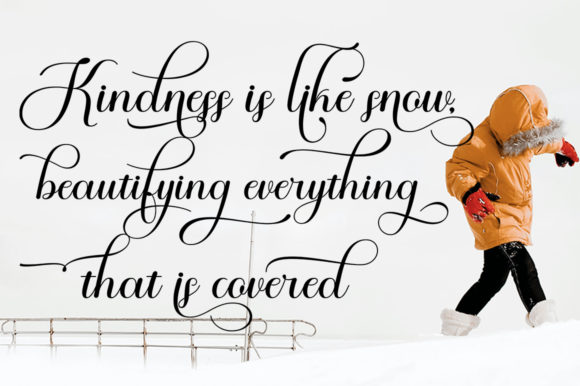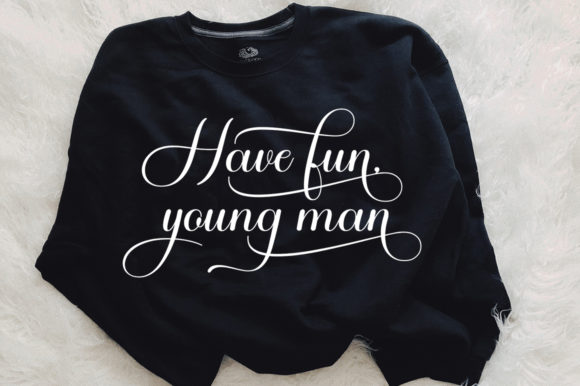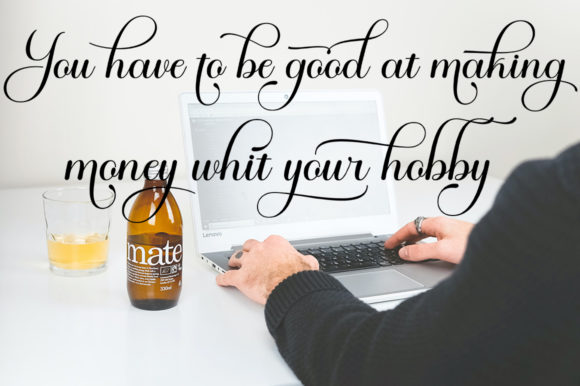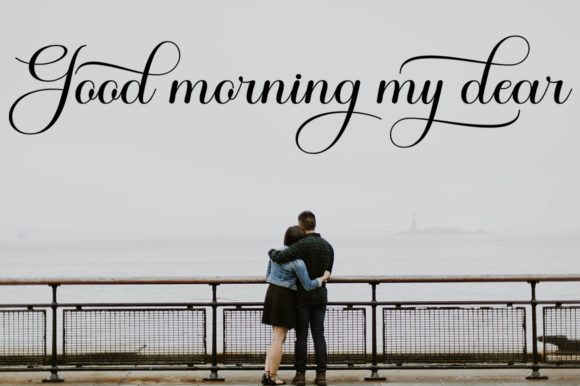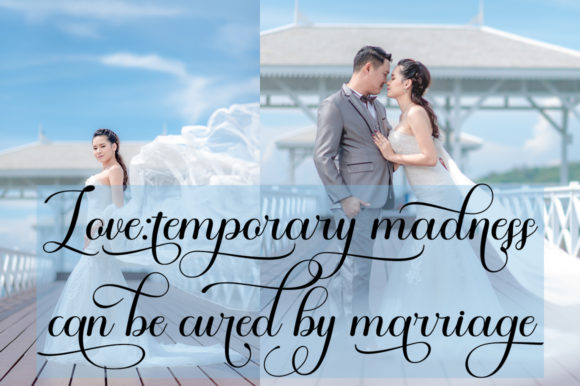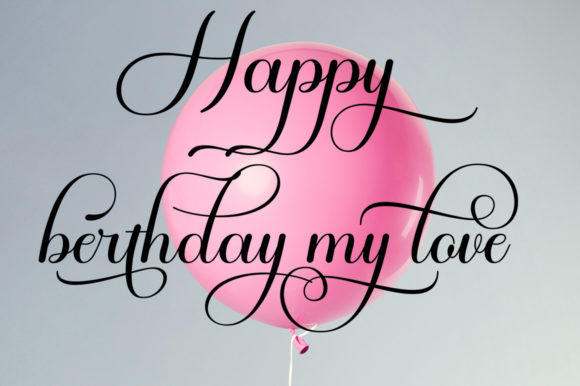
Cornelia Font: Elevate Your Creativity with Elegance
In the world of typography, few fonts manage to capture the essence of elegance and creativity as beautifully as the Cornelia Font. This magical handwritten font is a masterpiece of design, carefully crafted to add a touch of sophistication to any project. Whether you’re a designer looking for the perfect font for your Instagram posts or a crafter seeking a calligraphy script for your DIY projects, Cornelia is the ideal choice. In this article, we’ll explore the features, benefits, and uses of the Cornelia Font, and why it’s a must-have for anyone looking to turn their creative ideas into true pieces of art.
The Story Behind Cornelia Font
Cornelia Font is more than just a collection of letters; it’s an expression of artistry and attention to detail. The creators of Cornelia aimed to design a font that not only stands out for its beauty but also offers versatility and legibility. With a focus on elegance, Cornelia features flowing lines, delicate curves, and a distinctive character that sets it apart from more conventional fonts. This handwritten font is perfect for those who wish to add a personal touch to their work, making it feel more approachable and unique.
Key Features of Cornelia Font
- Magical Handwritten Style: Cornelia boasts a whimsical and enchanting quality that makes it perfect for a wide range of creative projects.
- Elegant and Sophisticated: Its elegant design ensures that your work looks polished and professional, whether it’s for personal or commercial use.
- Versatile: From Instagram posts and stories to DIY projects and professional branding, Cornelia adapts seamlessly to various contexts.
- Easy to Read: Despite its decorative nature, Cornelia maintains a high level of legibility, ensuring your message is always clear.
Using Cornelia Font for Instagram and Social Media
In the visually-driven world of Instagram and social media, standing out is crucial. Cornelia Font offers a unique opportunity to elevate your posts and stories with its elegant and eye-catching style. Use it to create stunning captions, quotes, or announcements that not only convey your message but also reflect your personal or brand’s aesthetic. With Cornelia, you can transform your social media presence, making it more engaging and memorable.
Cornelia Font in DIY Projects
For crafters and DIY enthusiasts, Cornelia Font opens up a world of creative possibilities. Whether you’re working on handmade cards, crafting personalized gifts, or creating decorative items, this font can add a touch of elegance and personality to your projects. Its calligraphy script style lends itself beautifully to various crafting techniques, allowing you to experiment with different designs and expressions.
Benefits for Designers
Designers will appreciate Cornelia Font for its flexibility and the distinctive flair it brings to any design project. Here are a few benefits:
- Time-Saving: With Cornelia, you can achieve professional-looking results without spending hours on custom calligraphy.
- Consistency: Using a unique font like Cornelia ensures consistency across your designs, which is crucial for building a strong brand identity.
- Inspiration: Cornelia’s elegant style can serve as a source of inspiration for your projects, helping you to explore new creative directions.
Cornelia Font is a versatile and beautiful addition to any creative toolkit. Its magical handwritten style, combined with elegance and legibility, makes it the perfect choice for designers, crafters, and anyone looking to add a touch of sophistication to their projects. Whether you’re creating content for Instagram, working on DIY crafts, or designing professional materials, Cornelia Font is sure to inspire and elevate your work. Discover the creative possibilities with Cornelia Font and turn your ideas into true pieces of art.